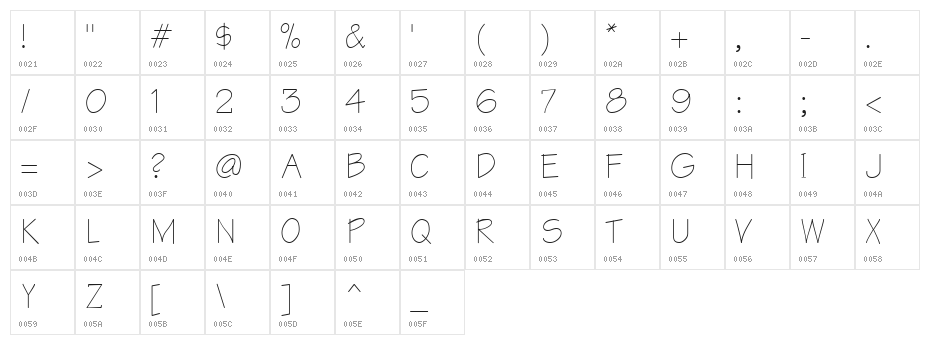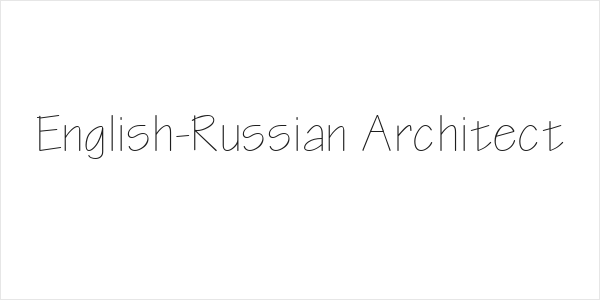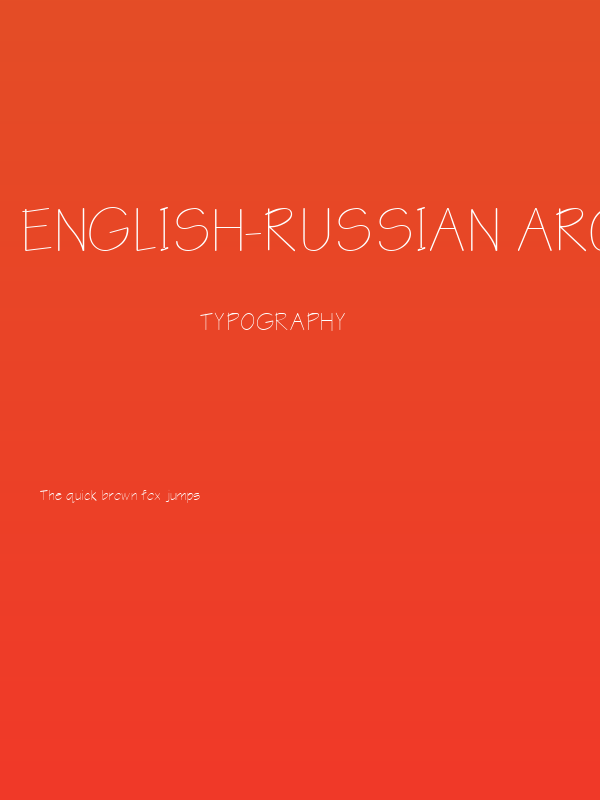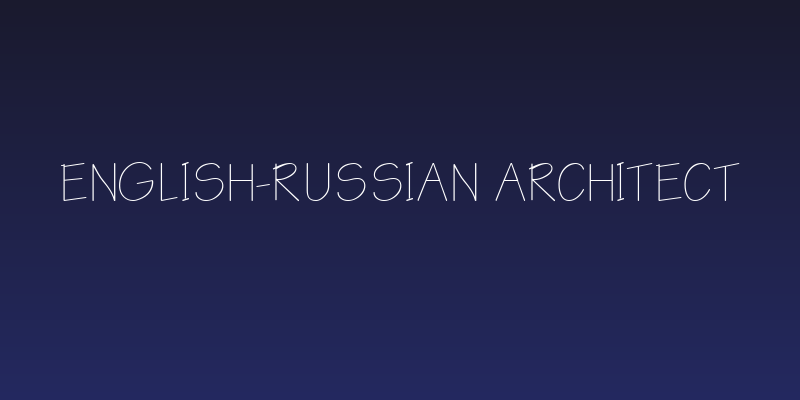
English-Russian Architect Font
English-Russian Architect Description
This font features a clean and modern design with a handwritten touch, characterized by its thin, uniform strokes and slightly rounded edges. The uppercase letters are tall and elegant, while the lowercase letters maintain a consistent flow, enhancing readability. Numbers are distinct and align well with the overall style, and the special characters are crafted to match the font's sleek aesthetic. The font's simplicity and clarity make it versatile for various design applications.
| Proposed Projects | Ideal for architectural designs, modern branding, minimalist posters, and elegant invitations. |